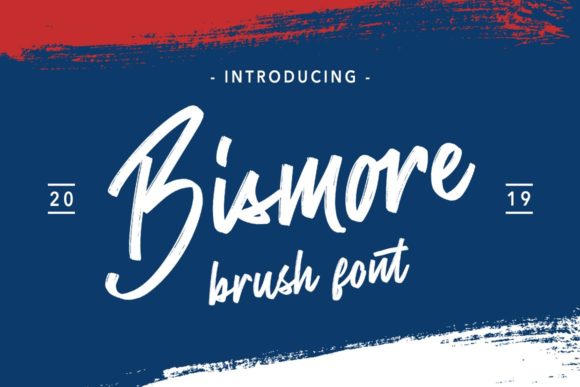
Embrace the enchanting charm of Bismore Font, a captivating script font that flows like a gentle stream. Its graceful strokes, reminiscent of a skilled calligrapher's hand, infuse your designs with an aura of elegance and sophistication.
Dive into a world of creative possibilities with Bismore Font. Its incredibly versatile nature makes it the perfect companion for an array of projects, from heartfelt wedding invitations to striking social media posts. Let Bismore Font be your creative partner, transforming your words into works of art.
Experience the beauty of Bismore Font on your small packaging designs. Its delicate lines and captivating curves add a touch of charm and exclusivity, making your products stand out from the crowd. Create packaging that captivates customers, leaving a lasting impression that keeps them coming back for more.
Fall in love with the artistry of Bismore Font. Its intricate details and expressive style add a touch of whimsy and delight to any project. Whether you're designing logos, branding materials, or simply adding a personal touch to your digital projects, Bismore Font is the perfect choice for adding a touch of magic.
Bismore Font is more than just a font; it's an expression of your creativity and passion. Let its enchanting beauty elevate your designs to new heights, capturing hearts and leaving a lasting impression. Embrace the power of Bismore Font and unlock a world of captivating designs today!